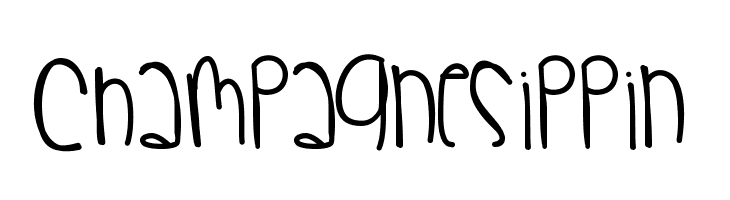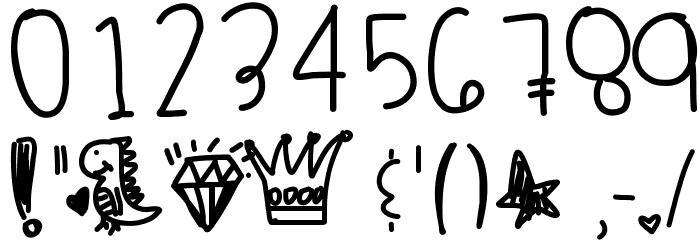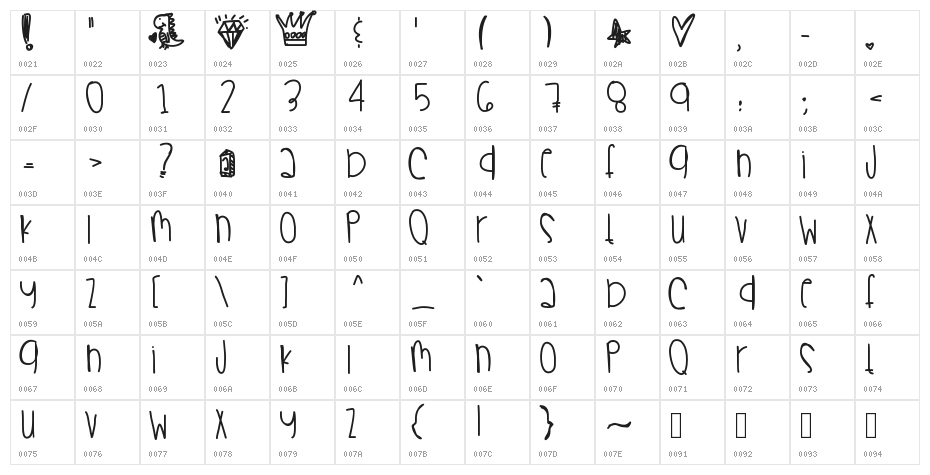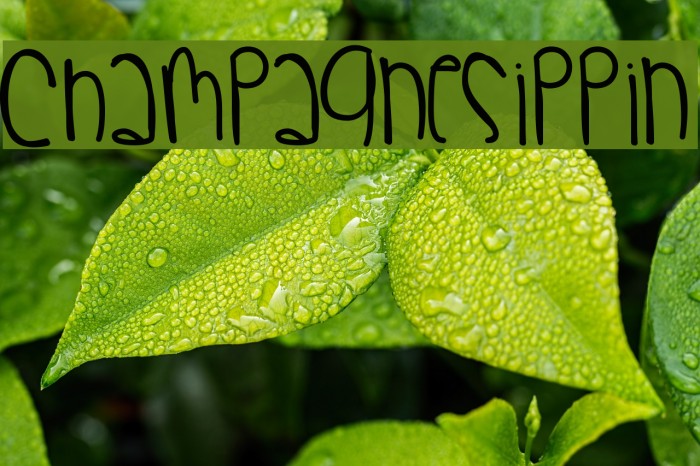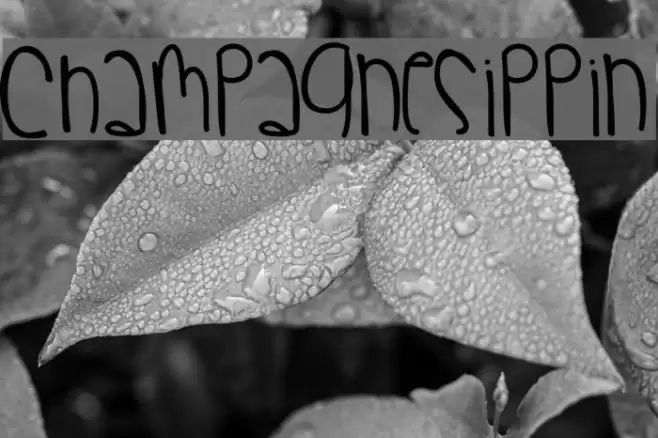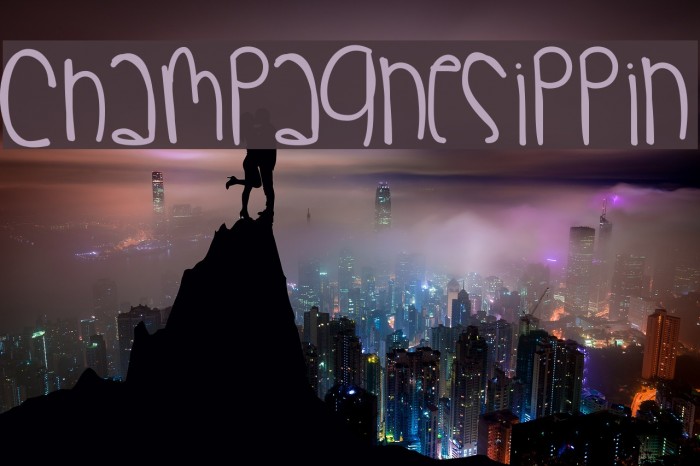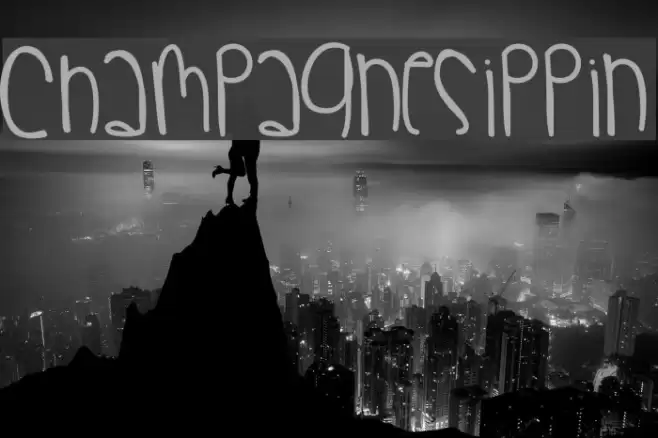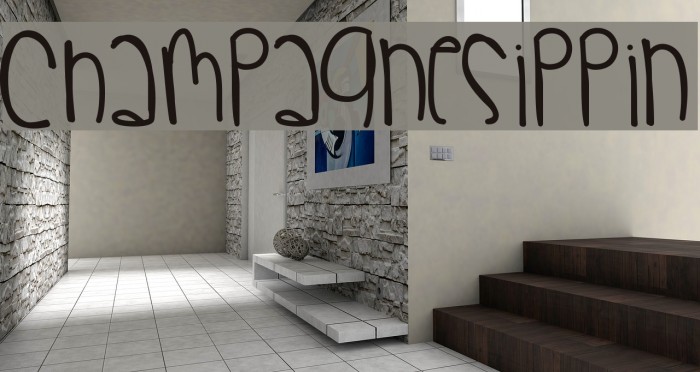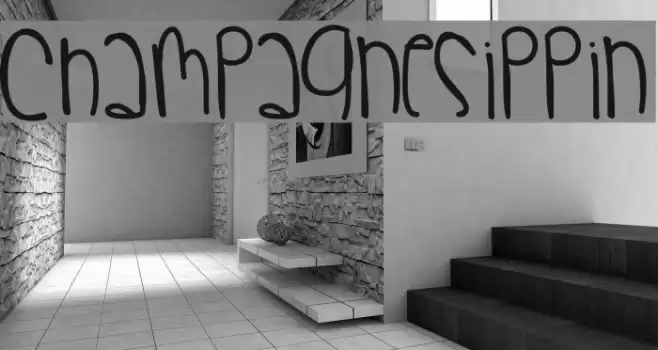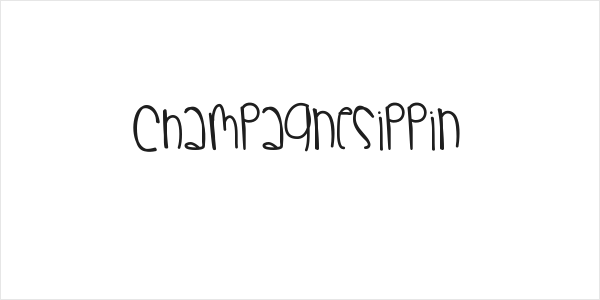
ChampagneSippin Font
ChampagneSippin Description
This playful and whimsical font features tall, narrow letters with a hand-drawn appearance. The characters have a consistent stroke width, giving them a uniform look, while the slightly irregular shapes add a touch of charm and personality. The uppercase and lowercase letters maintain a cohesive style, with rounded edges and a casual flow. The numbers and special characters are designed to match the overall aesthetic, making this font suitable for creative and informal projects. Its unique style can add a fun and lively touch to any design.